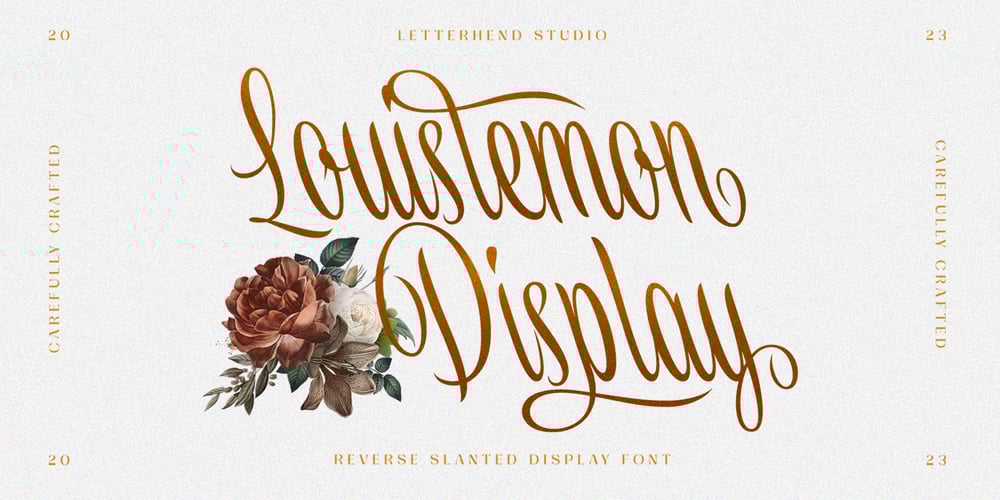
Louislemon Font Family was designed by Hendry Juanda and published by Letterhend. Louislemon contains 1 styles and family package options. Introducing, Louislemon Display – a unique display script with a reverse slant style. The unusual look of the script makes this typeface one of a kind. This type of font perfectly made to be applied especially in logo, and the other various formal forms such as invitations, labels, logos, magazines, books, greeting / wedding cards, packaging, fashion, make up, stationery, novels, labels or any type of advertising purpose.Features : uppercase & lowercase numbers and punctuation multilingual alternates and ligatures PUA encoded We highly recommend using a program that supports OpenType features and Glyphs panels like many of Adobe apps and Corel Draw, so you can see and access all Glyph variations.